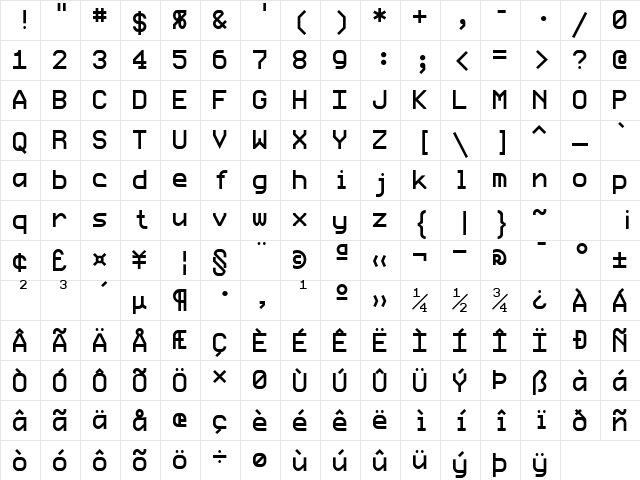
ProFontWindows Regular
Design Context for ProFontWindows Typeface
ProFontWindows offers clean, dependable letterforms without strong stylistic allegiance, making it a practical choice for designers who need flexibility.